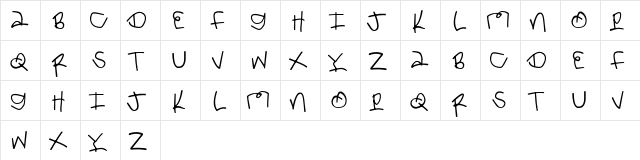
King Kendrick Regular
Design Context for King Kendrick Typeface
King Kendrick is a composed and adaptable typeface that performs quietly and consistently across a wide range of design contexts.